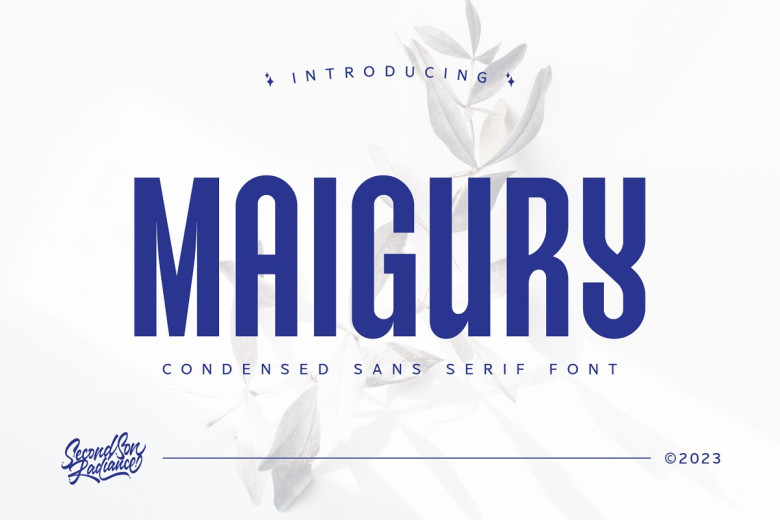
Maigury Font
Maigury has a Japanese aesthetic and is an appealing sans-serif font designed to lend itself to elegant and feminine projects. This font can be found used for logos, branding, advertising, travel/holiday design projects, music, fashion projects such as movie titles, posters, book, novel covers, editorial designs as well as websites, blogs, cards.
Maigury Sans Serif Font